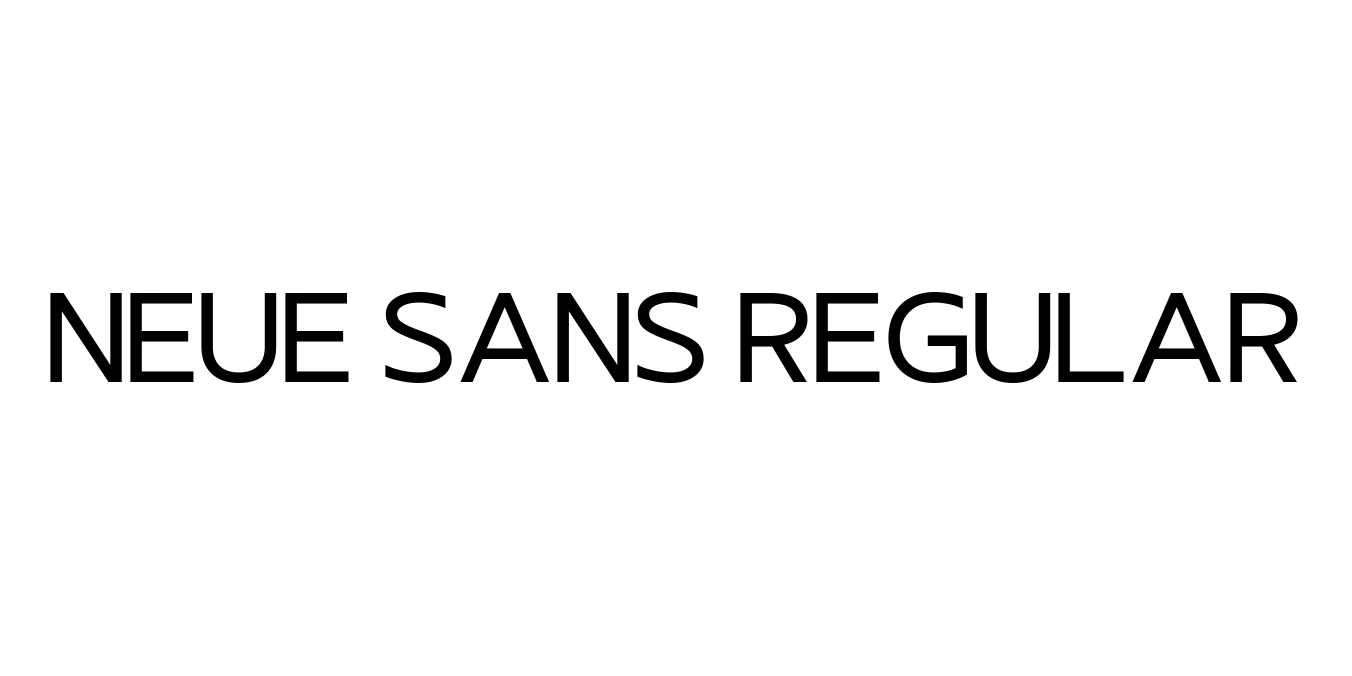
Neue Sans Regular
Designed by Lukas Berberich
Neue Sans Regular is a contemporary neo-grotesque typeface designed to bridge the gap between classic Swiss typography and modern digital requirements. It draws inspiration from mid-20th-century geometric sans-serifs but incorporates refined optical corrections to ensure maximum readability on high-resolution screens. The font is characterized by its balanced proportions and neutral personality, making it a versatile tool for designers who require a clean aesthetic without excessive flair.
Throughout its development, Neue Sans was optimized for both display and body text applications. Its wide apertures and consistent stroke weights provide a sense of stability and professionalism, which has led to its widespread adoption in corporate identities and user interface design. Whether used in minimal print layouts or complex mobile applications, the font maintains a sophisticated presence that adapts seamlessly to various design contexts.
Neue Sans Regular Best Uses
Ideal for professional logos and corporate identity systems.
Highly legible for body text and clean UI components.
Perfect for clear navigation and interface elements on small screens.
Excellent for elegant layouts in brochures, posters, and magazines.